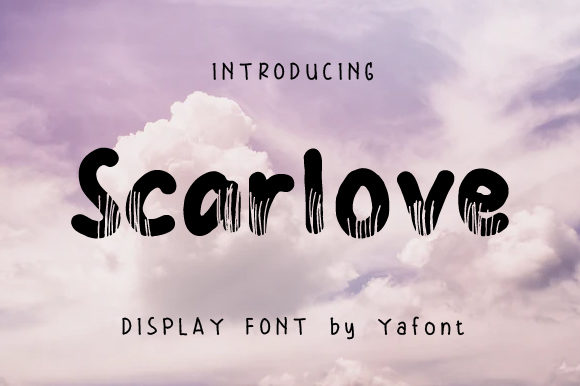
Scarlove
About Scarlove Font
Scarlove is a cute and incredibly trendy display font. Unique and friendly, this font will elevate each of your design projects!